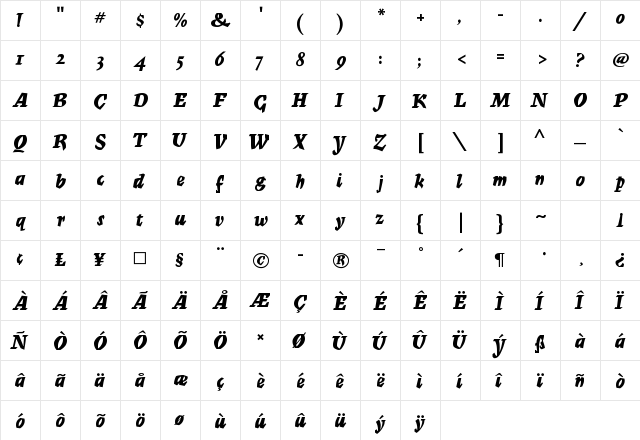
Mercurius Regular
Design Context for Mercurius Typeface
Mercurius offers clean, dependable letterforms without strong stylistic allegiance, making it a practical choice for designers who need flexibility.
Pro Tip: Pair Mercurius with a font of contrasting weight or personality to build a more expressive typographic hierarchy.